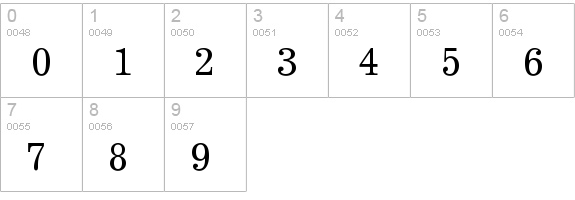
Excelsior EastA Roman Font Details
Excelsior EastA Roman is a stunning and elegant font that exudes classic sophistication. Its timeless design features clean lines and sharp edges that make it perfect for formal projects or branding materials. With its graceful curves and precise letterforms, Excelsior EastA Roman commands attention and leaves a lasting impression. The best part? Excelsior EastA Roman is available for free download at FontsMarket.com! This means you can easily access this high-quality font without any cost, making it a valuable addition to your font library. Don't miss out on the opportunity to enhance your designs with the beauty and versatility of Excelsior EastA Roman. Download it today and elevate your projects to the next level.